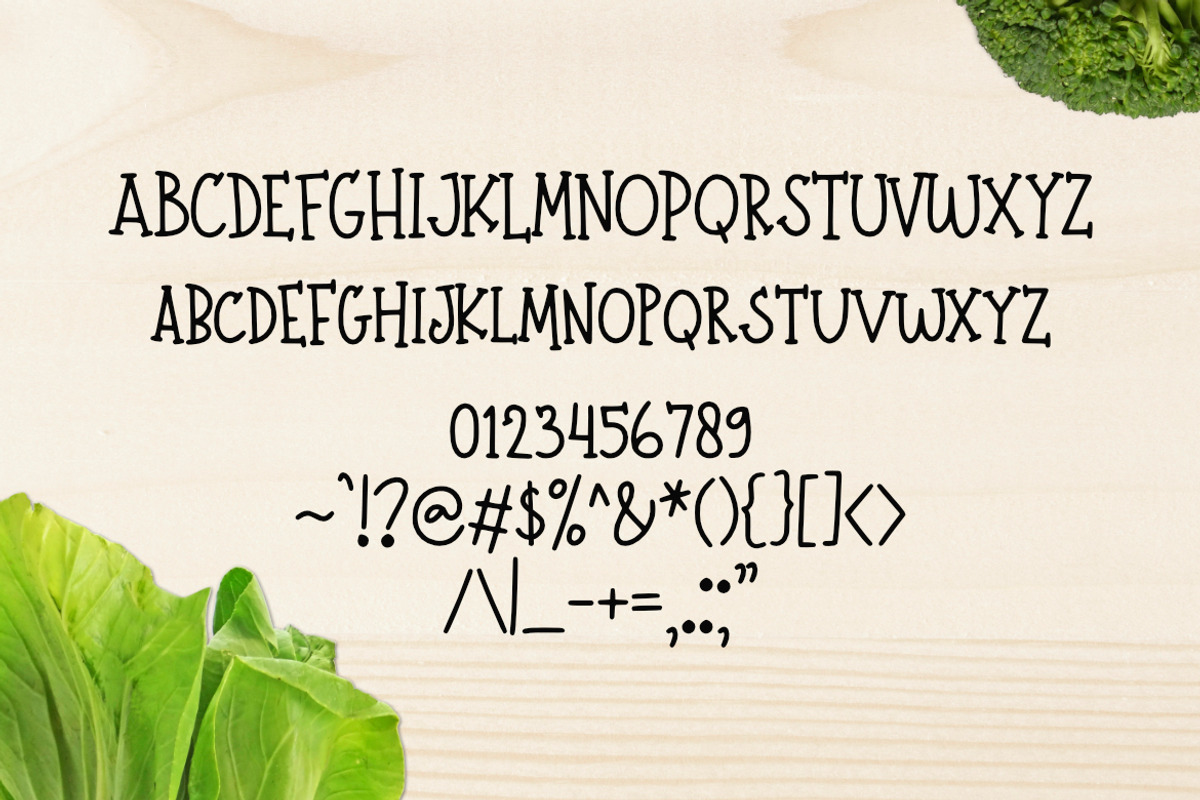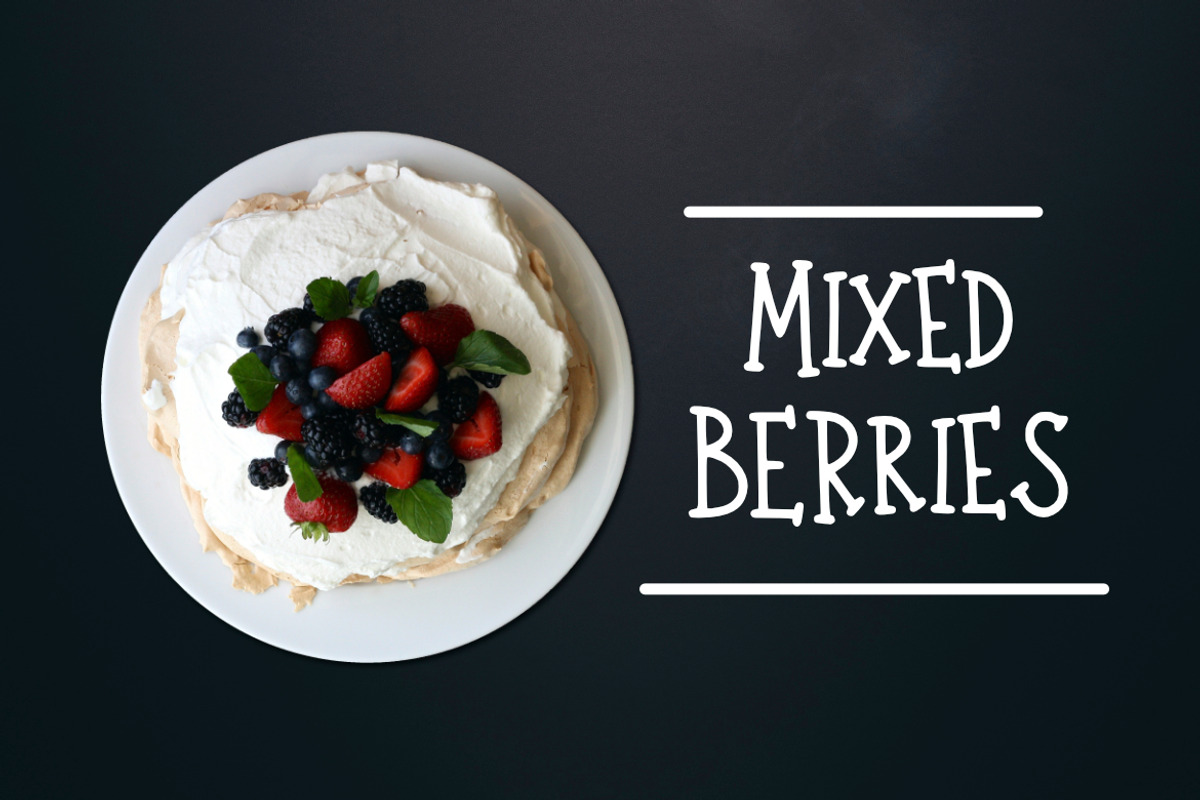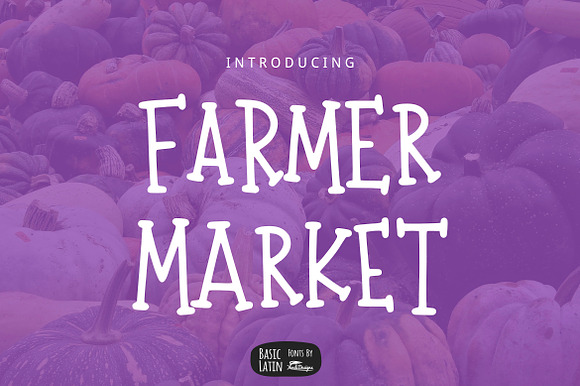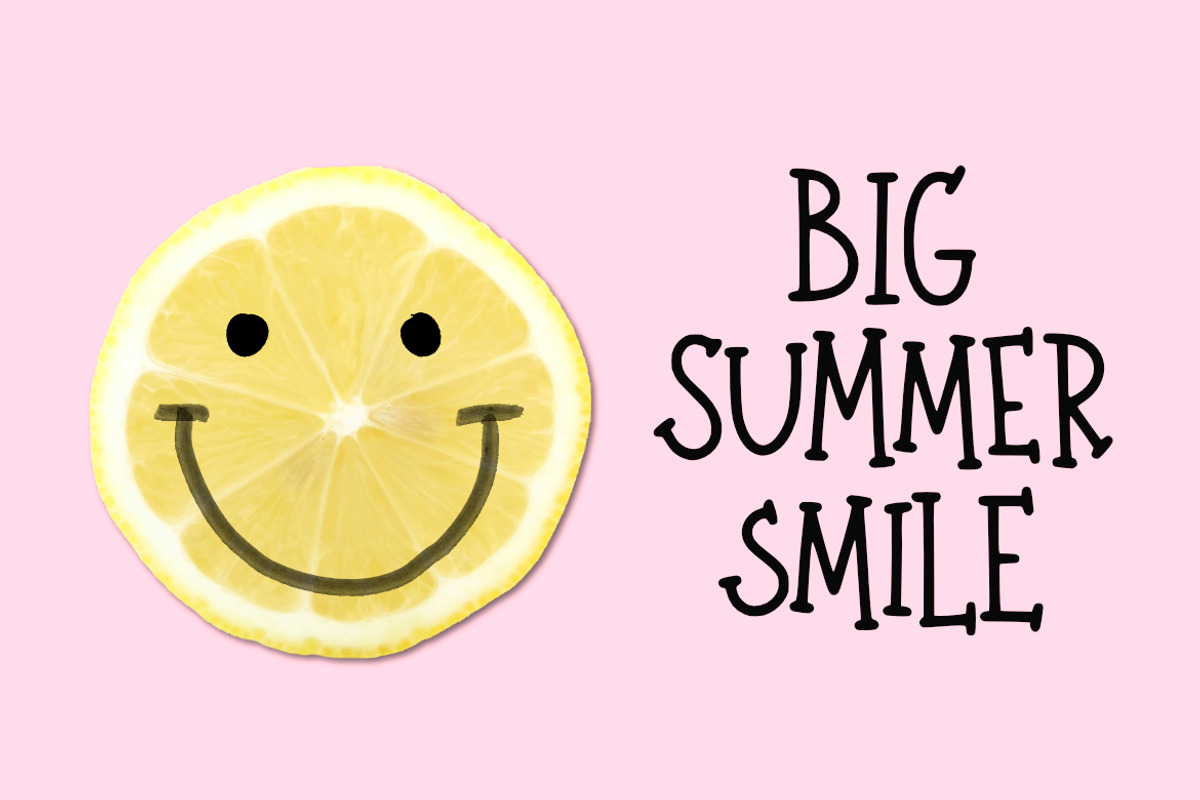
Farmer Market Simple Font
Simple all caps multipurpose font , suitable for many project children book, quotes, logo , heading , title etc.
Why Farmer Market Simple Font is worth a look
Farmer Market Simple Font by YandiDesigns fits naturally into Branding, posters, packaging, typography.